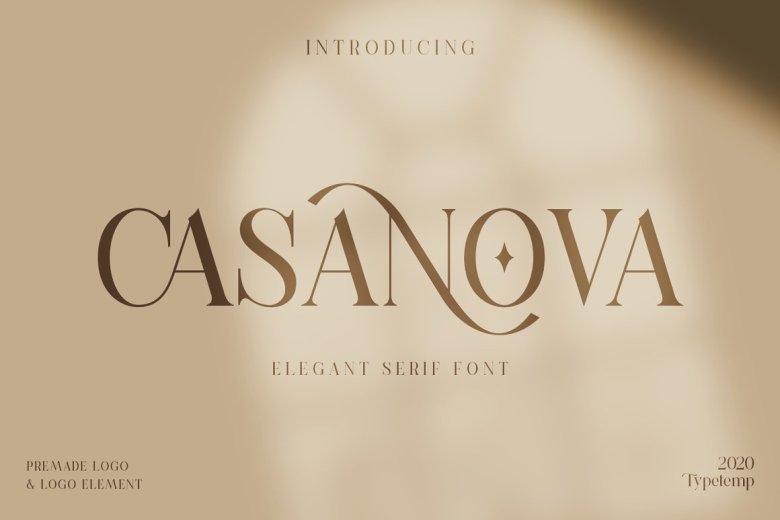
Casanova Serif Font
Casanova Font
Casanova Serif Font is unique serif font, every single letters have been carefully crafted to make your text looks fashionable and european style. It’s designed and shared by Typetemp Studio. This typeface is a modern-style serif font with alternatives and ligatures that create stunning logos, quotes, posts, blog posts. branding projects, magazine imagery, wedding invitations, and much more.